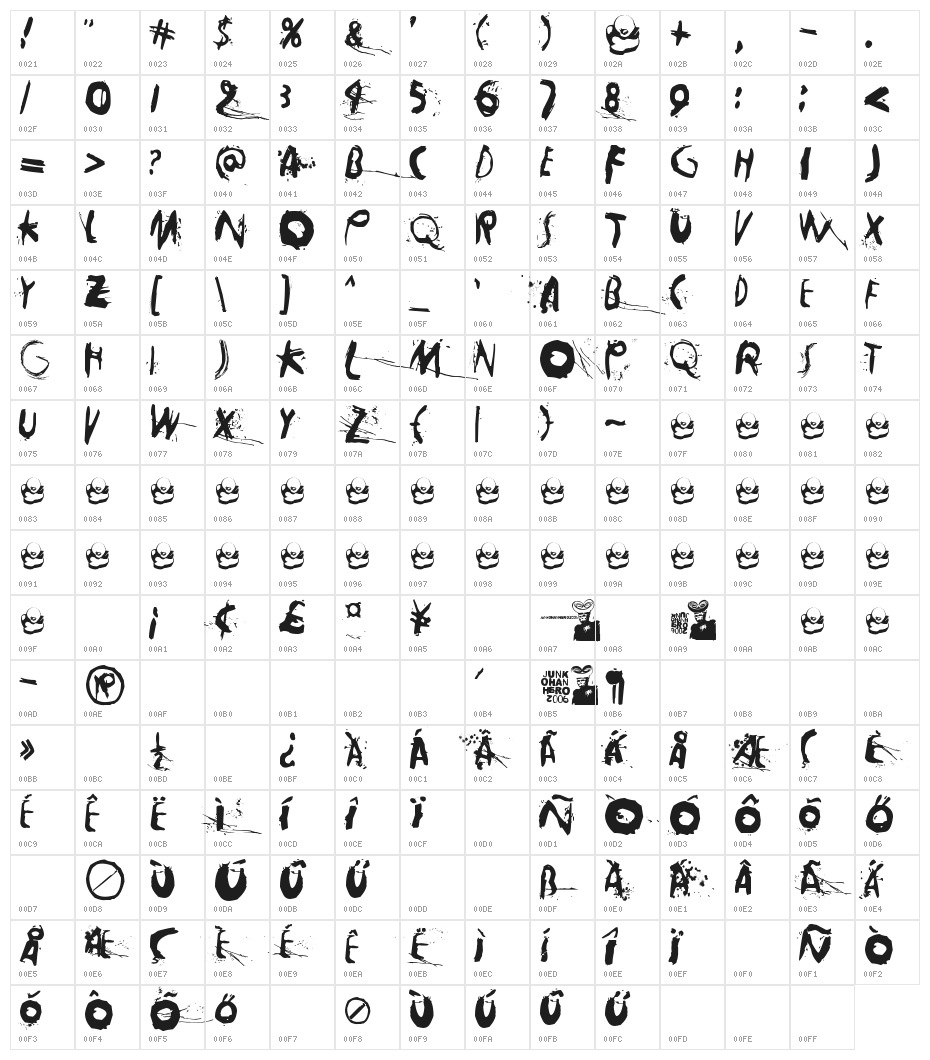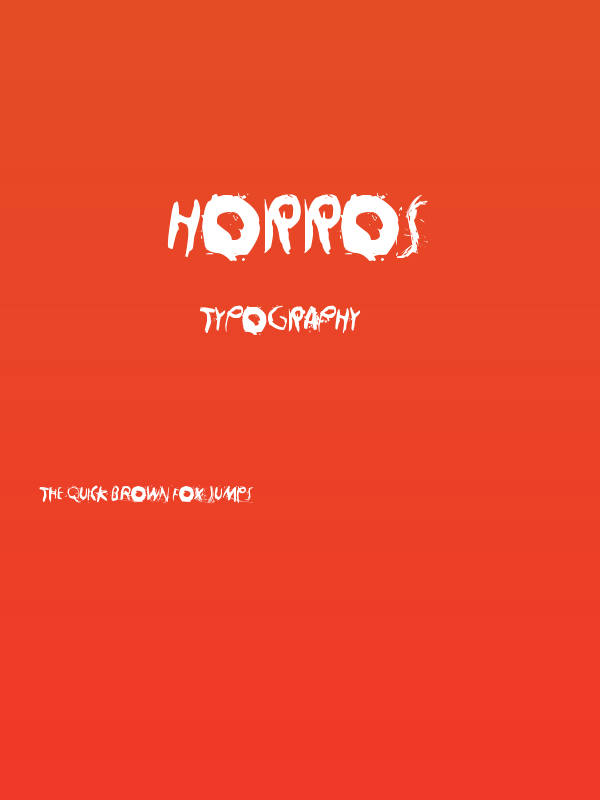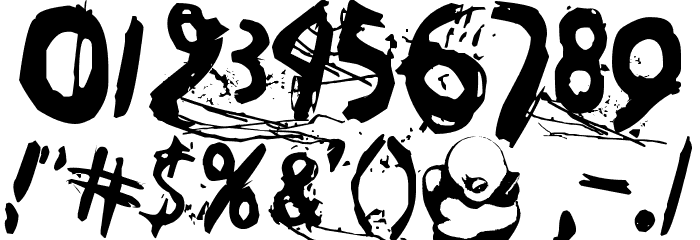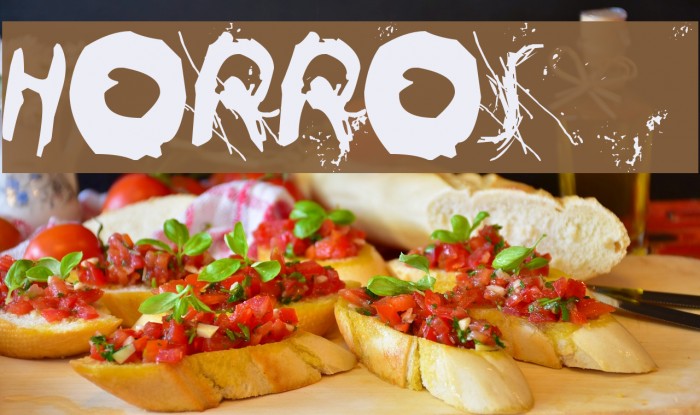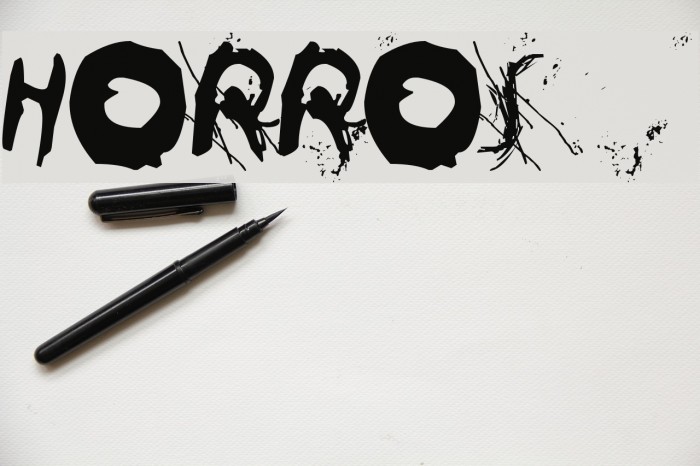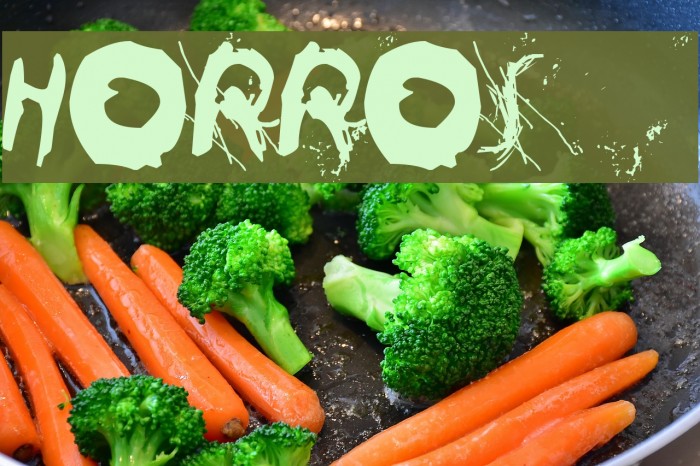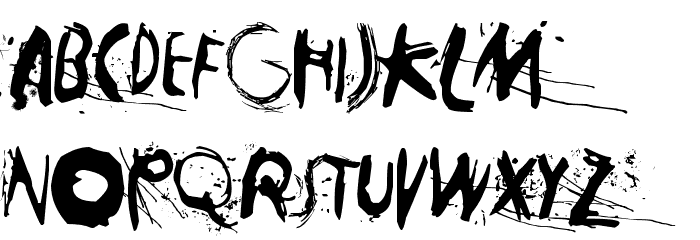
Horros Font
Horros Description
This font exudes a chaotic and distressed aesthetic, characterized by its jagged and irregular strokes that mimic the appearance of splattered ink or paint. The letters are bold and heavily textured, giving them a raw and edgy feel. Each character seems to have been created with a sense of urgency, as if hastily drawn with a brush. The uppercase and lowercase letters maintain a consistent style, with exaggerated curves and sharp angles. Numbers and special characters follow the same distressed theme, adding to the overall grunge effect. This font is ideal for projects that require a dramatic and intense visual impact.
| Use Case | Headlines, Posters, Logos |
| Proposed Projects | Perfect for horror movie posters, Halloween event flyers, edgy album covers, or any design needing a dramatic, intense look. |